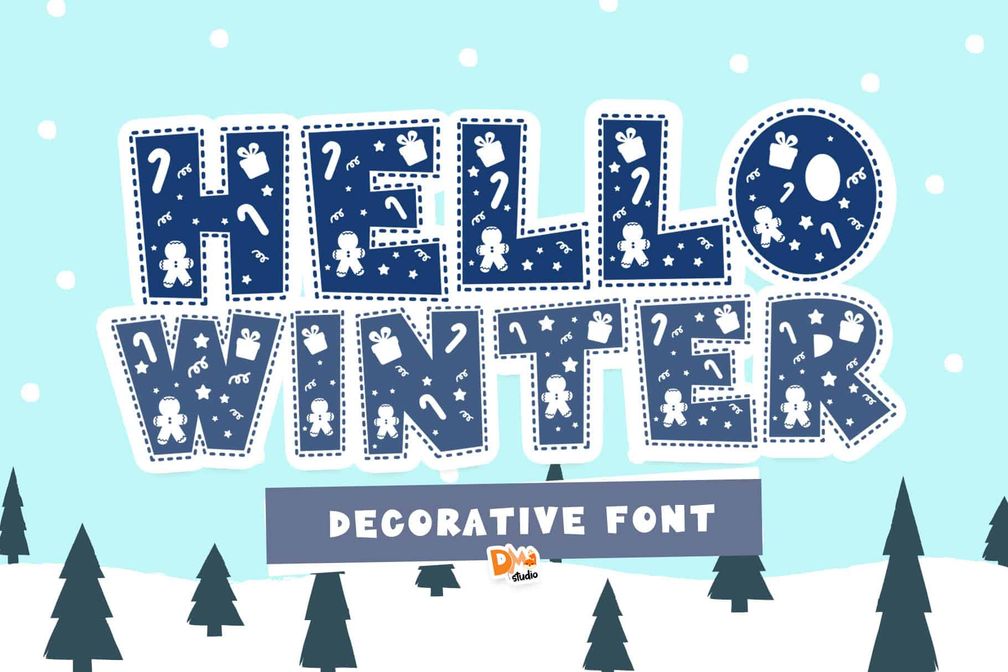
Hello Winter
Hello Winter – Playful & Festive Seasonal Font
Hello Winter is a cheerful and cozy font that captures the magic of the winter season. With its rounded shapes and friendly style, this typeface is perfect for winter-themed crafts, holiday greetings, seasonal branding, warm apparel designs, and more. Its inviting appearance brings a sense of joy and comfort to any project during the chilly months.
• Warm & Friendly Style: Rounded and soft letterforms reflect the coziness of wintertime.
• Great for Seasonal Designs: Ideal for Christmas cards, winter decor, mugs, sweaters, and festive packaging.
• Versatile for Crafts & Branding: Works well in digital designs and physical crafts alike.
• Full Character Set: Includes uppercase, lowercase, numbers, punctuation, and multilingual support.